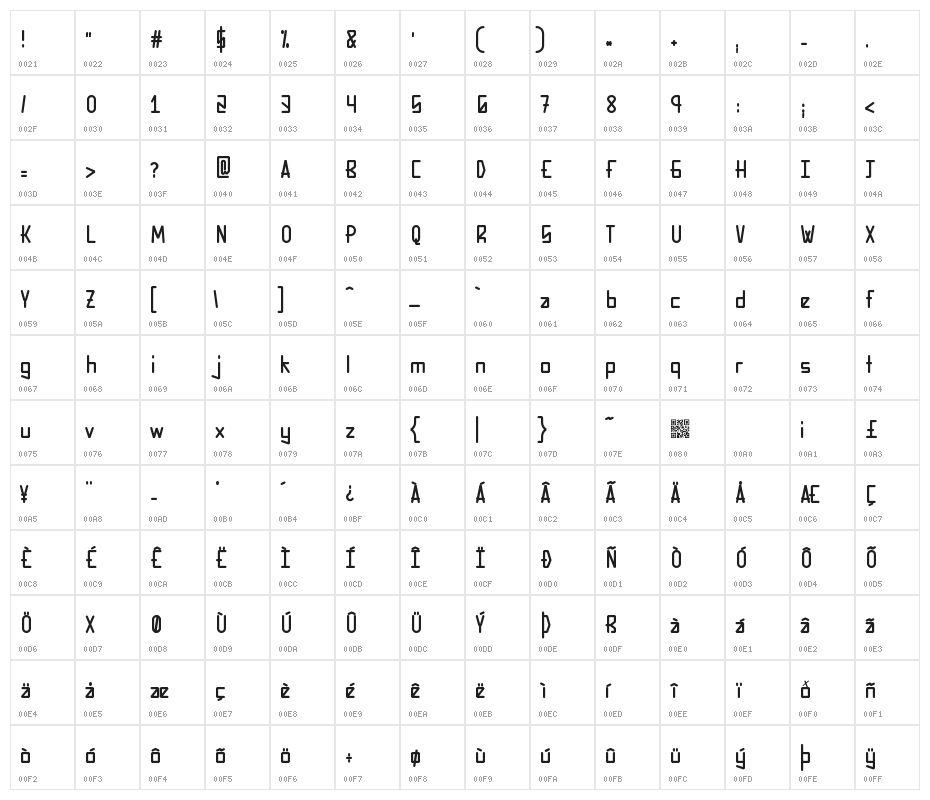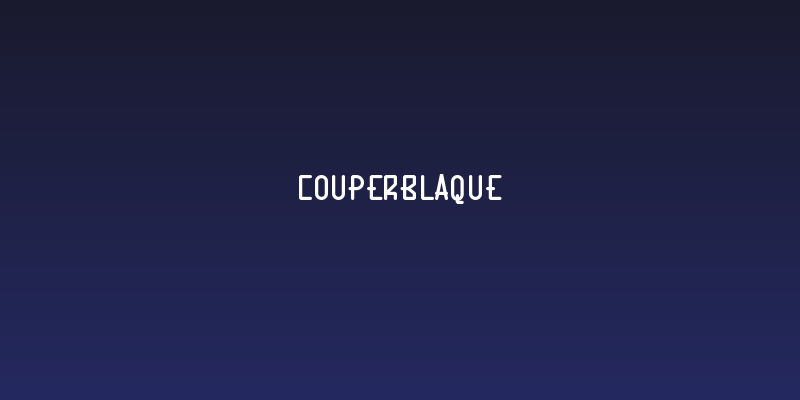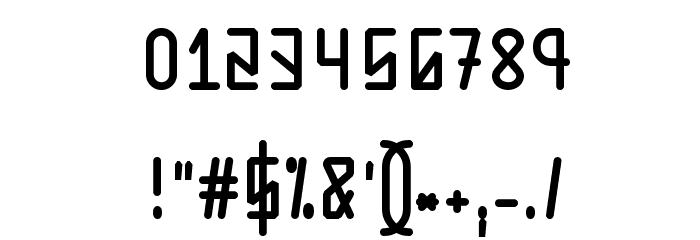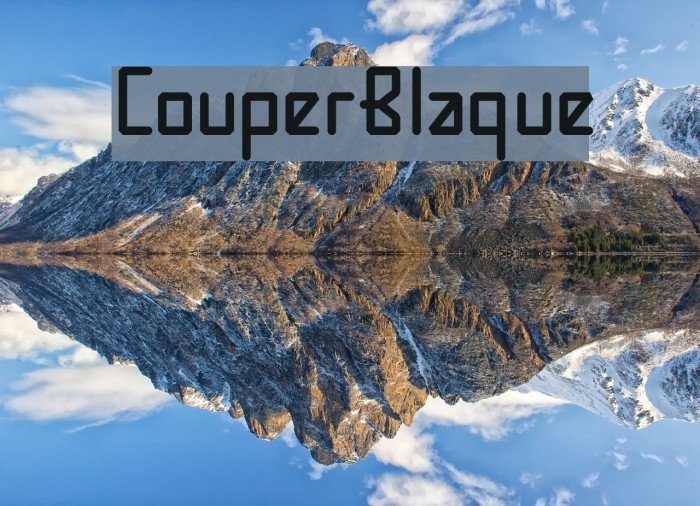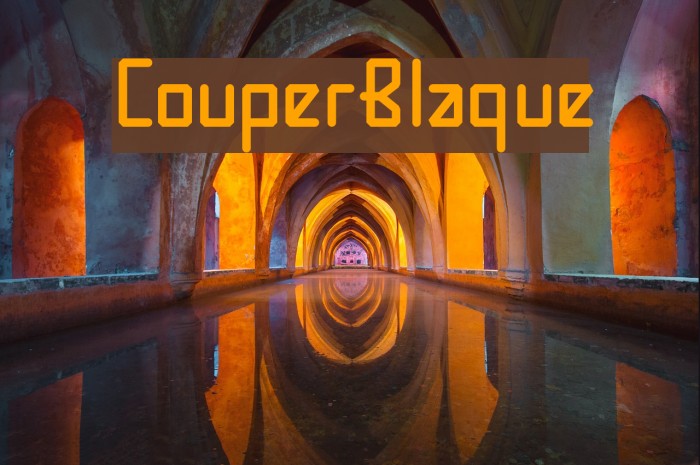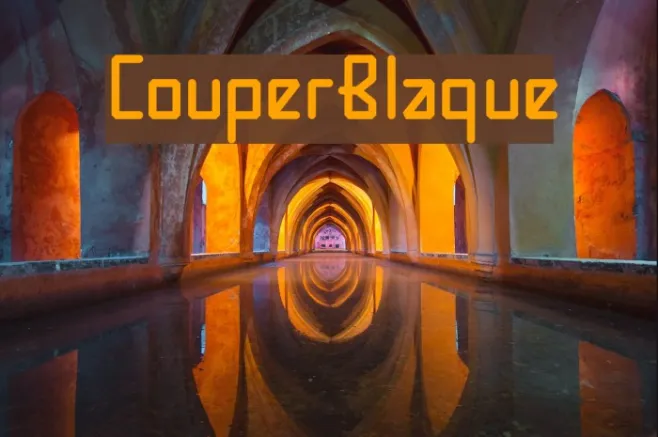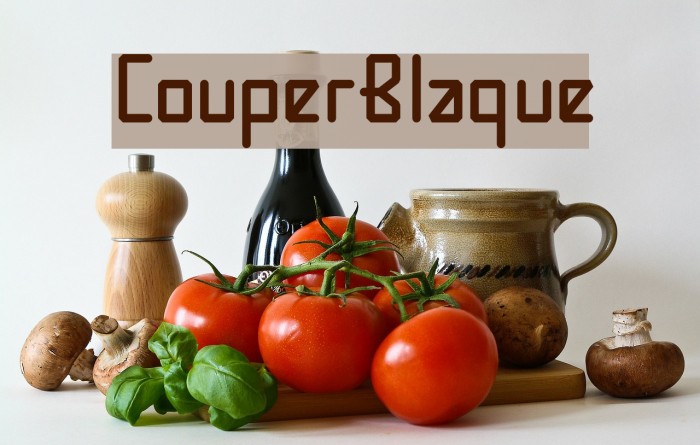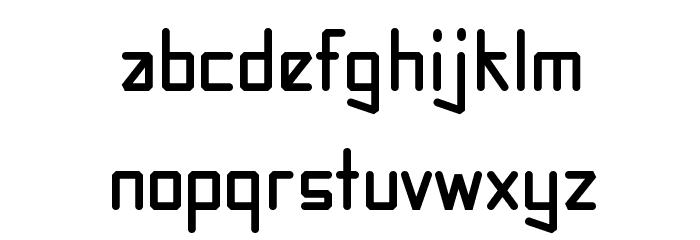
CouperBlaque Font
CouperBlaque Description
This font features a unique, geometric style with a modern twist. The characters are constructed with a consistent stroke width, giving it a clean and structured appearance. The uppercase letters have a distinct angular design, while the lowercase letters maintain a more rounded form, creating a balanced contrast. Numbers and special characters follow the same geometric theme, ensuring uniformity across all glyphs. The font's design is both contemporary and versatile, making it suitable for a variety of applications.